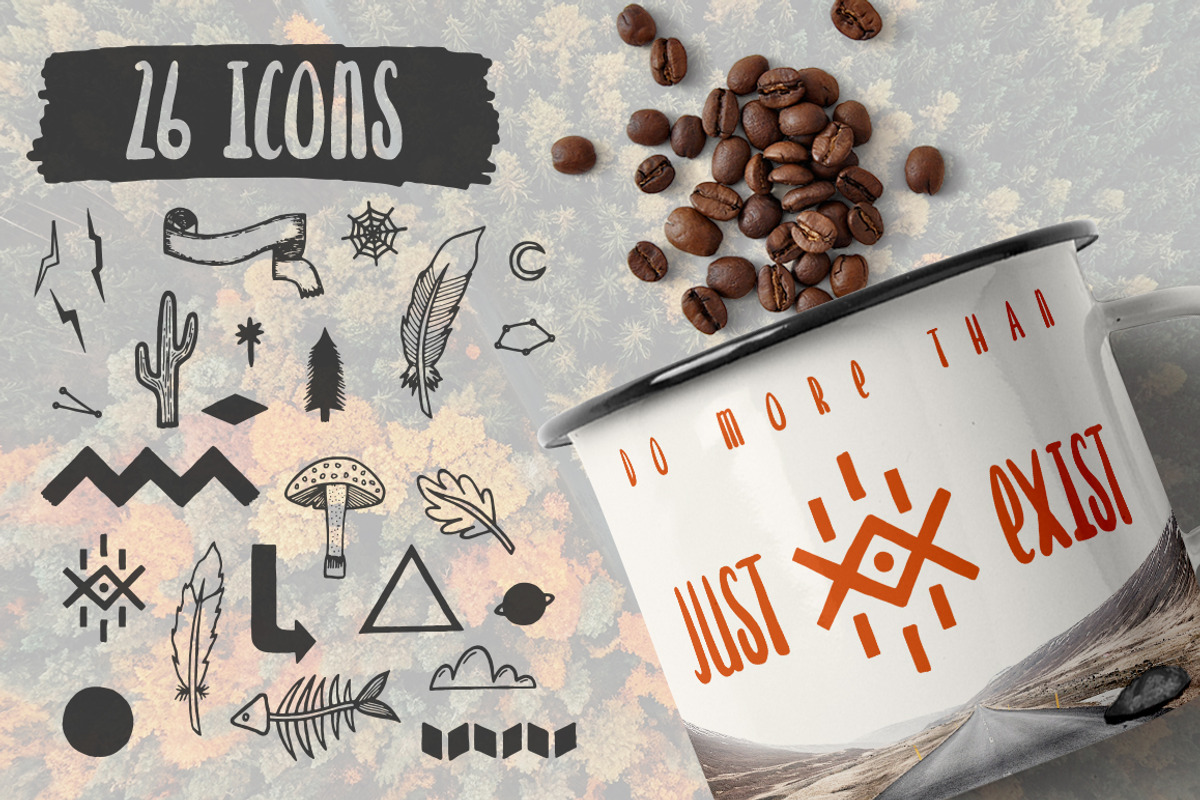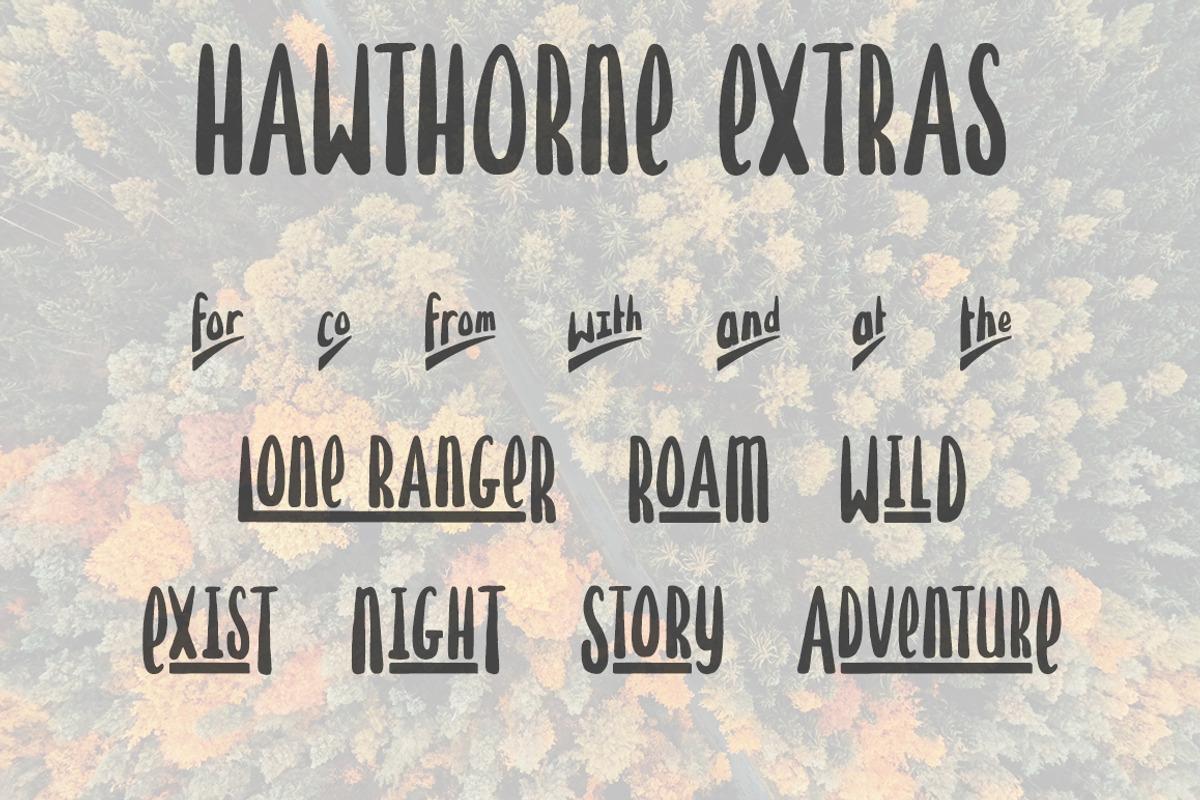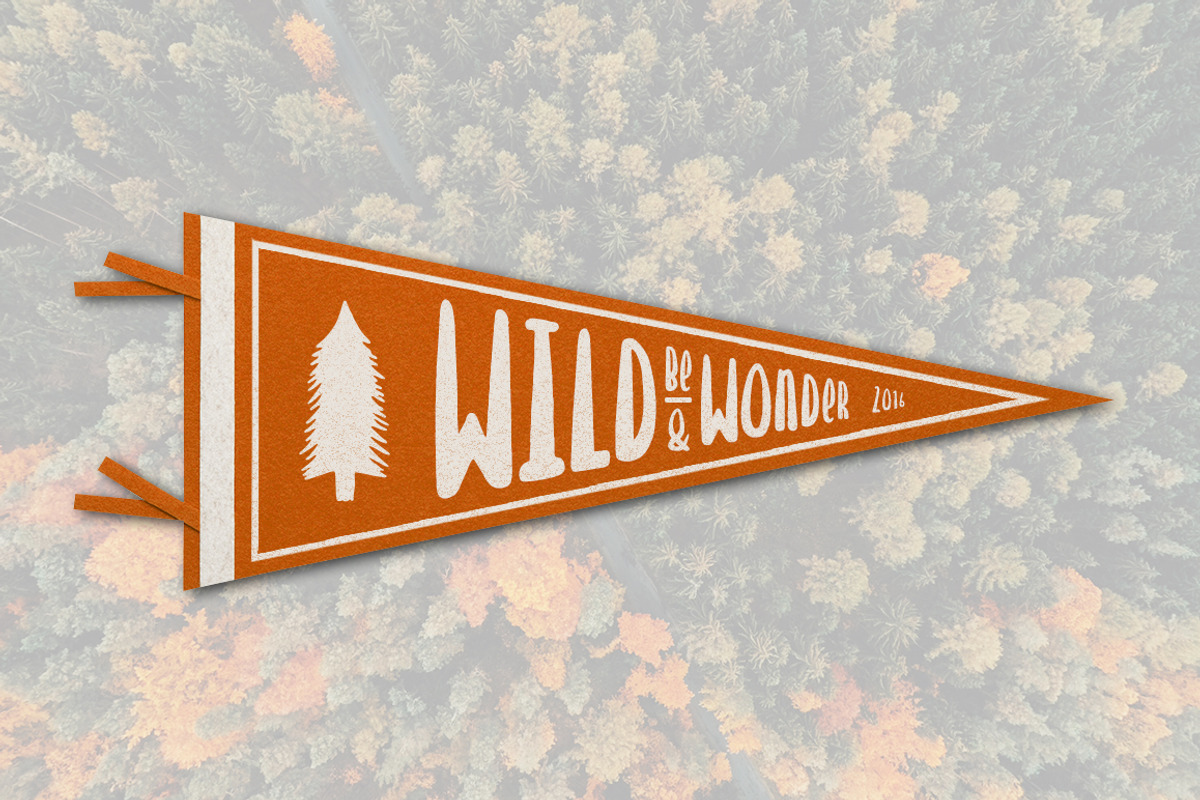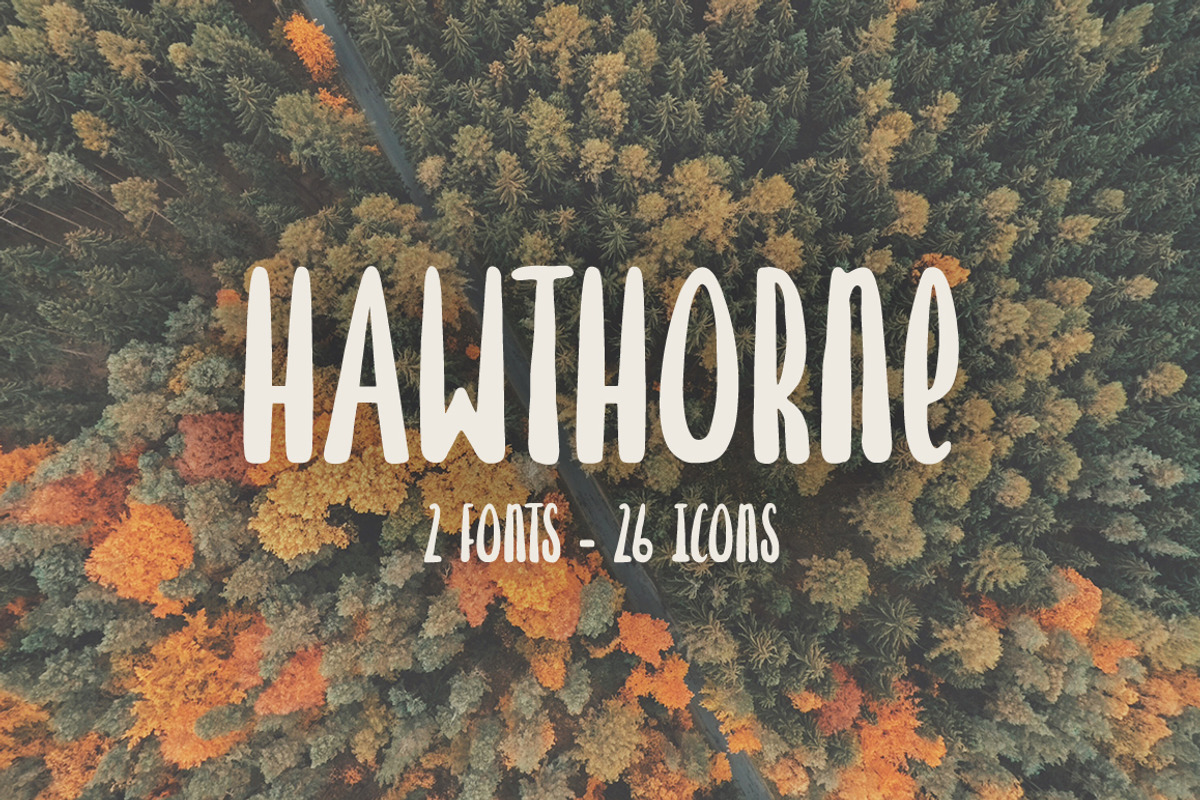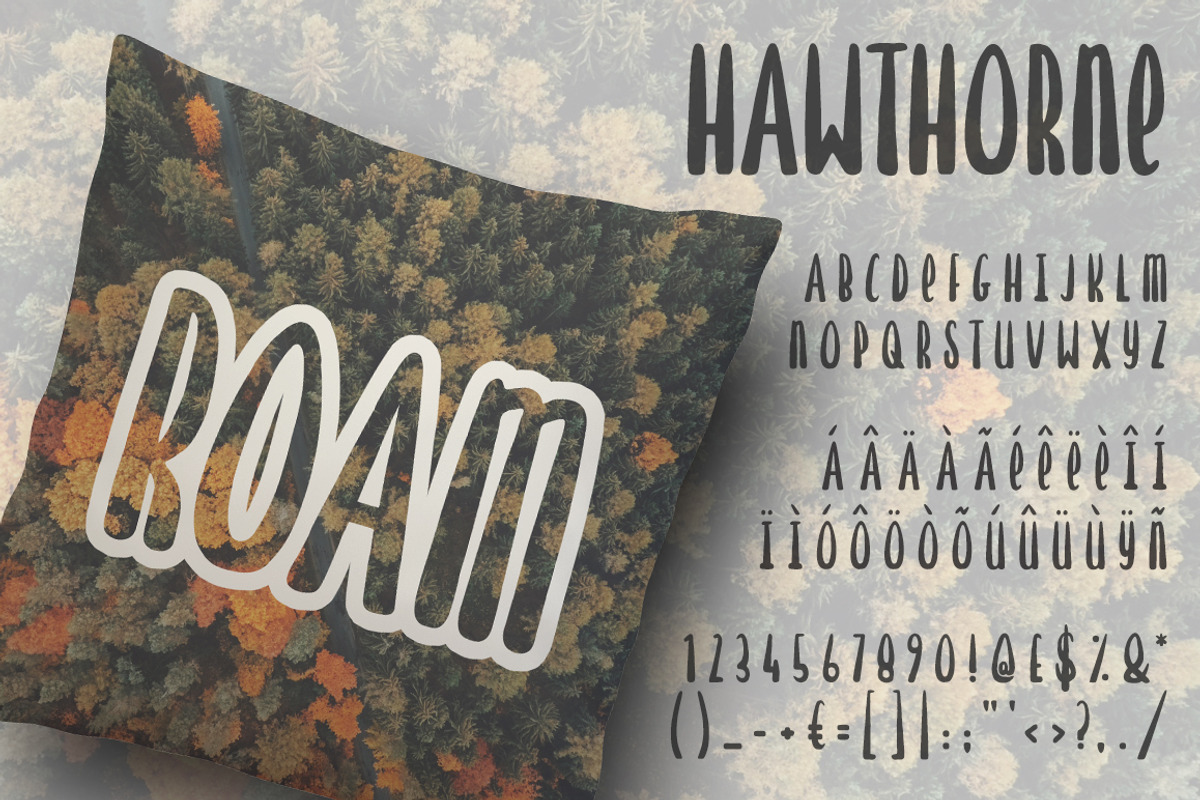
Hawthorne Hand Drawn Font
Hawthorne Hand Drawn Font by Design Surplus is a font selected for branding, posters, packaging, typography.
- Also included are 26 bonus icons to compliment Hawthorne's hand painted style.
- 'Extras' includes a ton of catchwords which you can incorporate into your designs and add a little personal touch.
- Included are 26 hand drawn icons to compliment this hand painted typeface.
Hawthorne Hand Drawn Font by Design Surplus fits naturally into Branding, posters, packaging, typography.